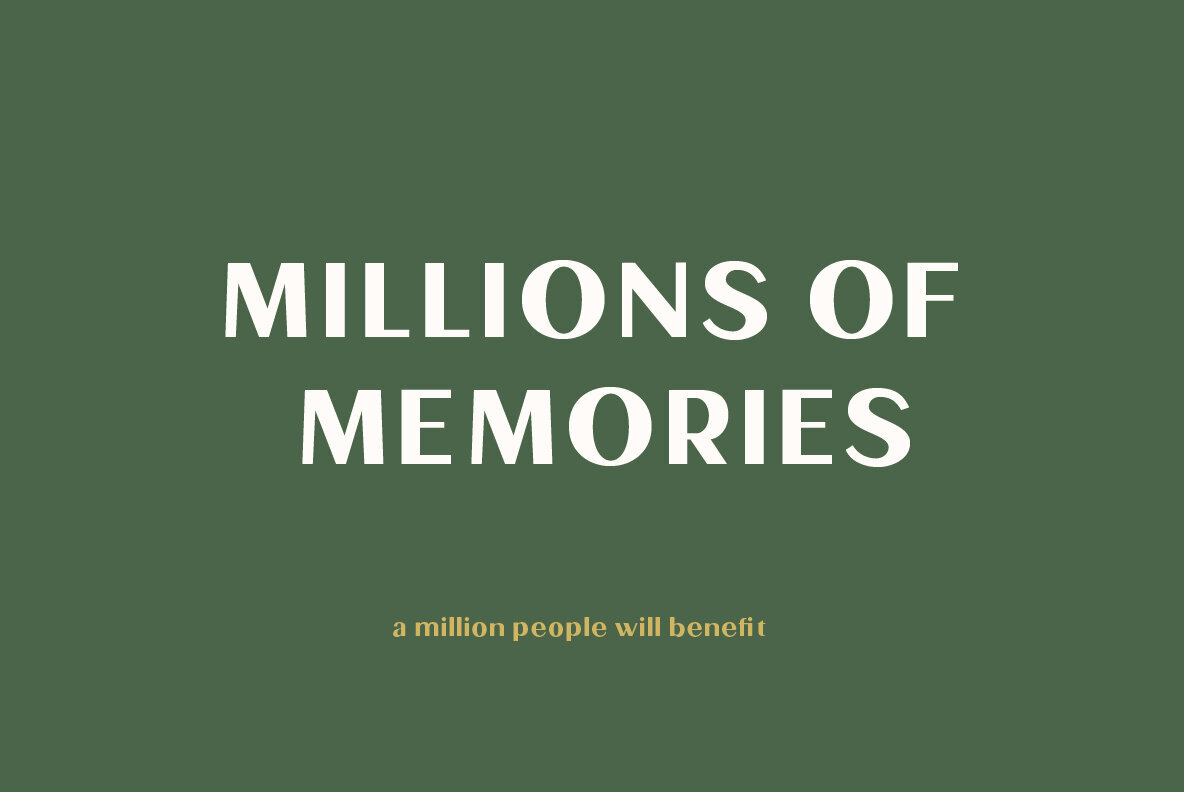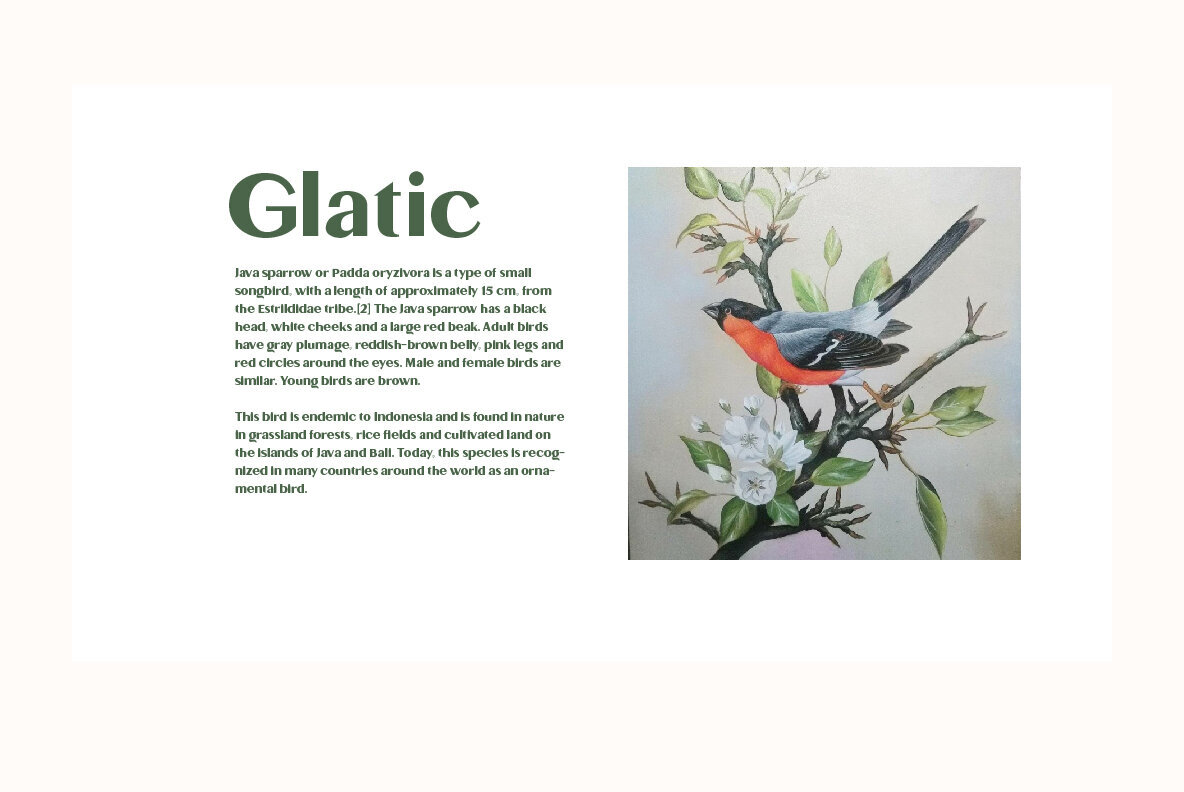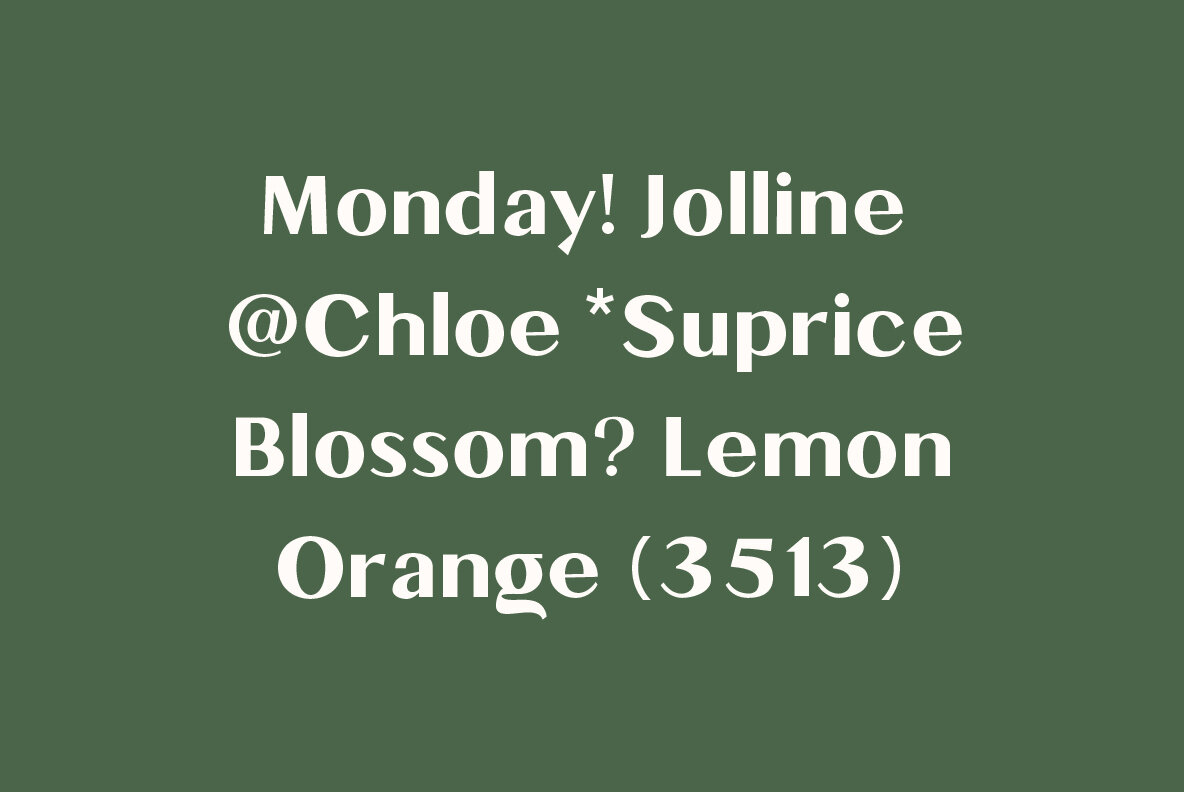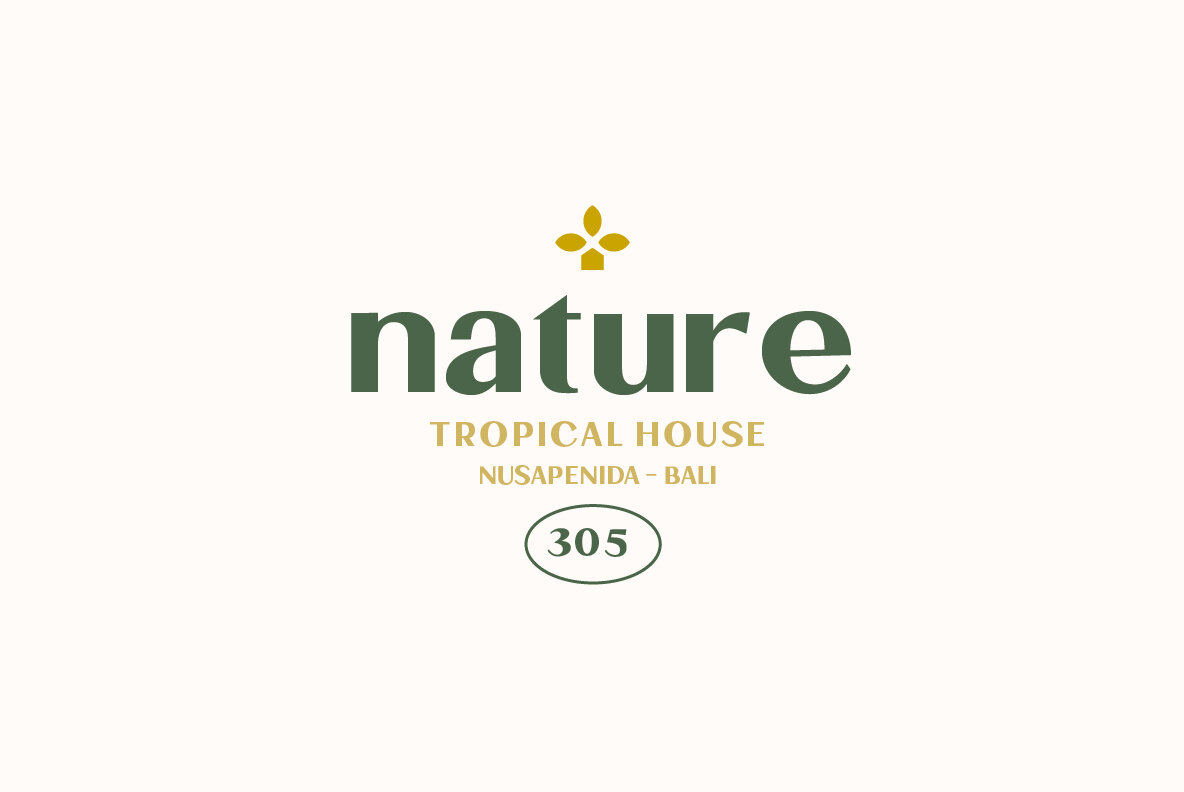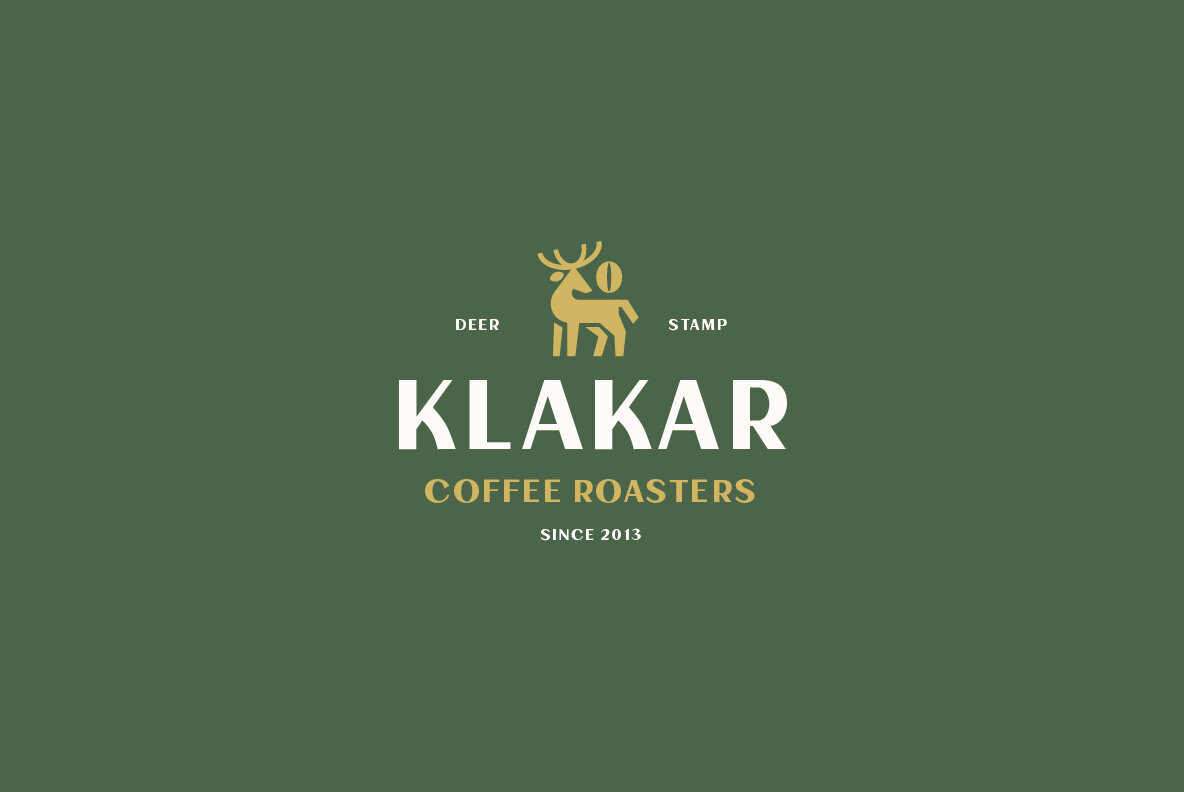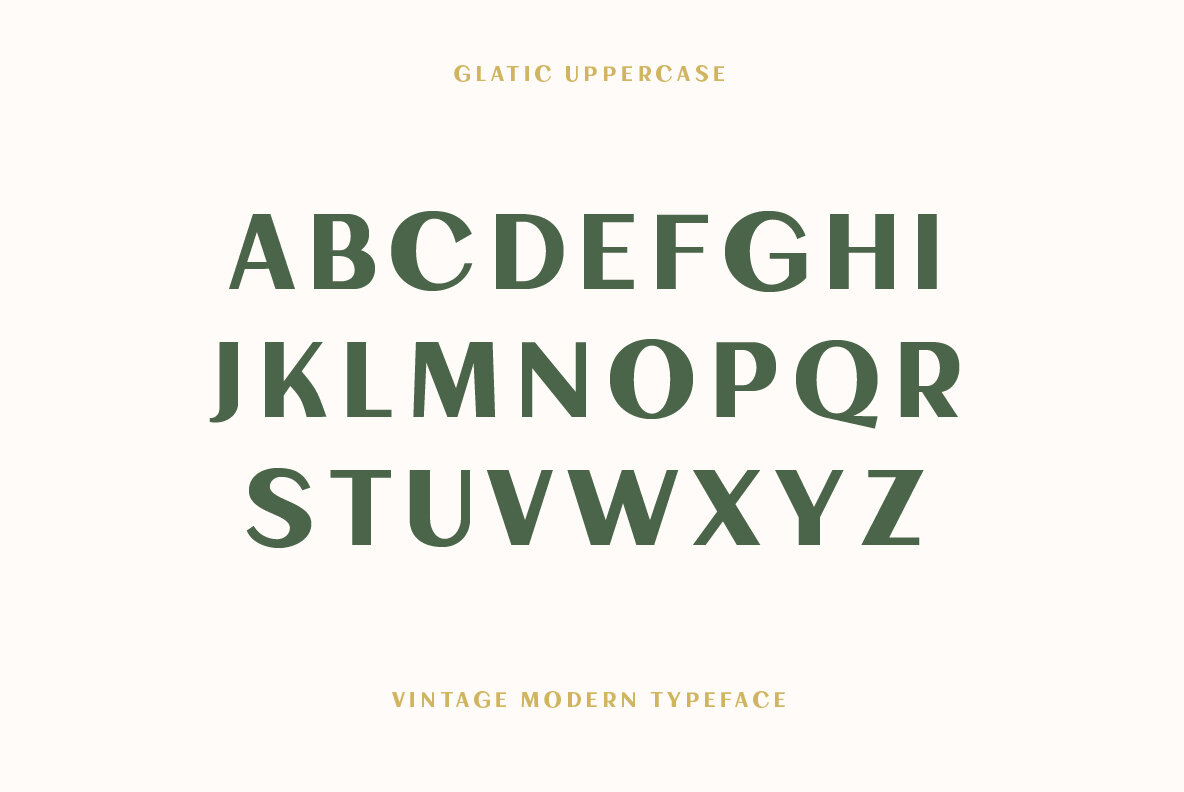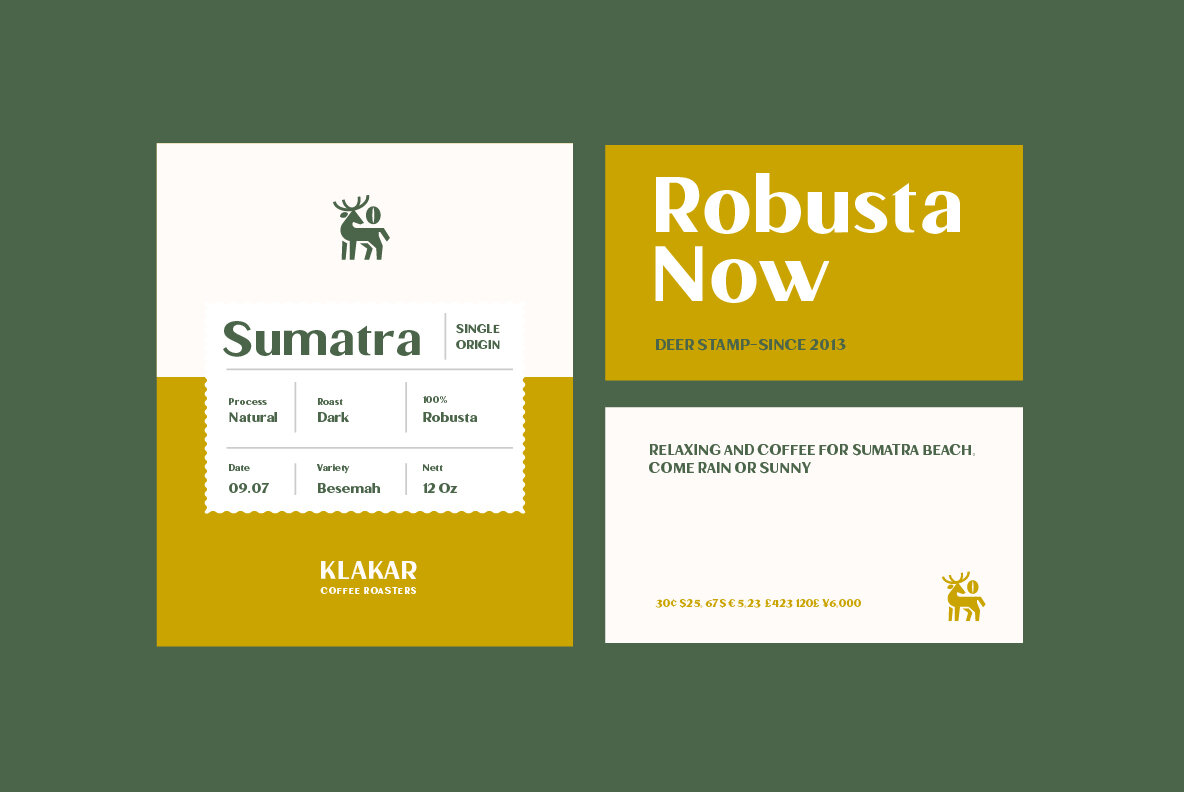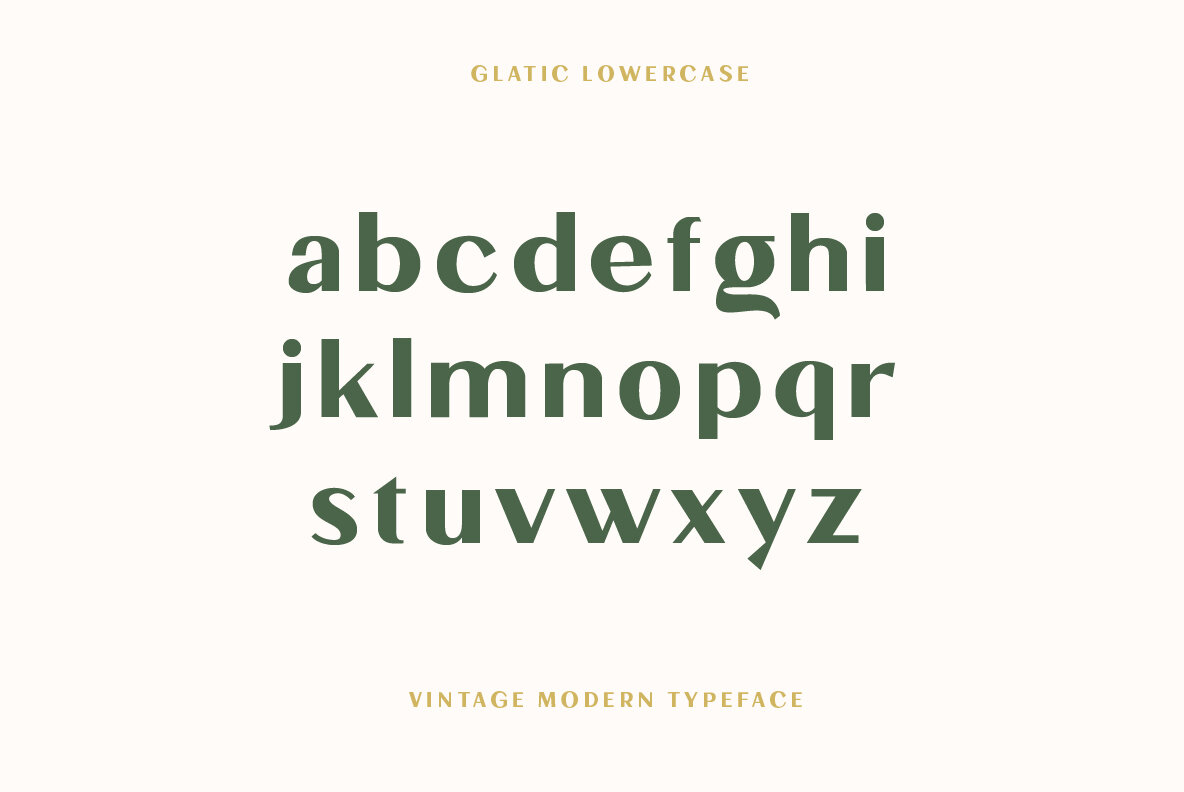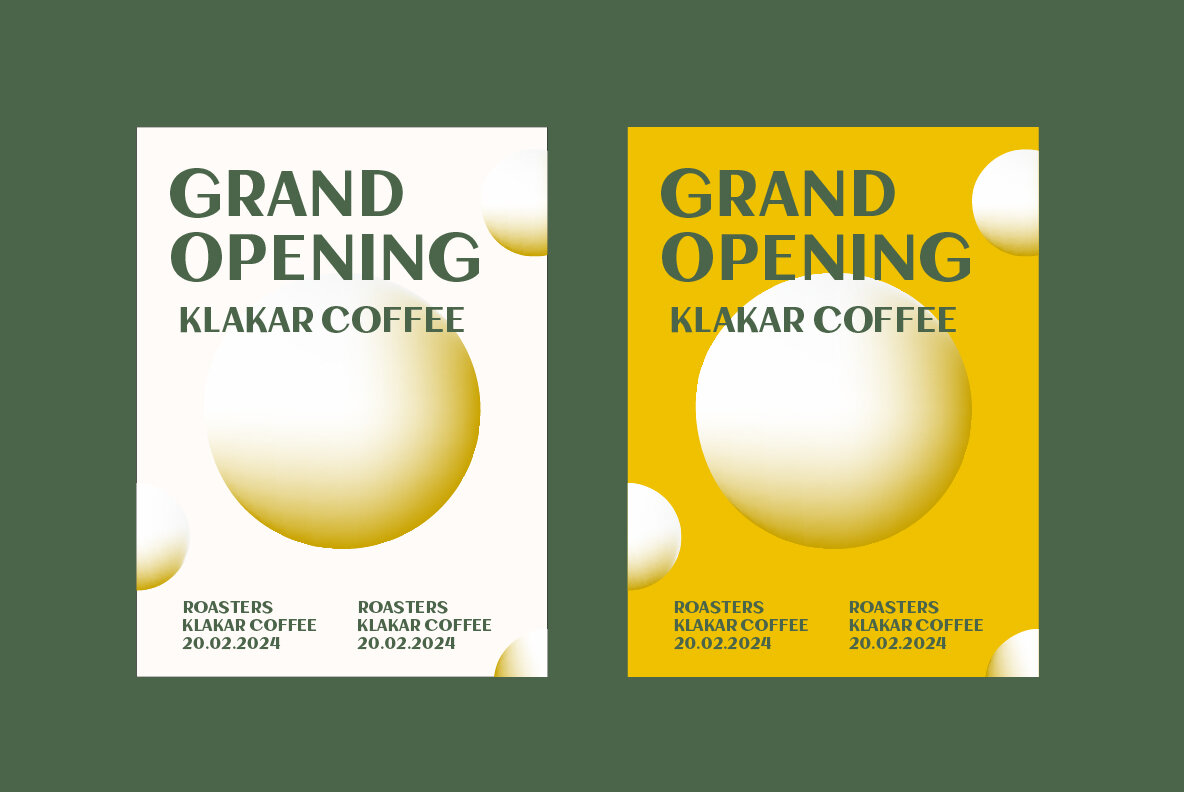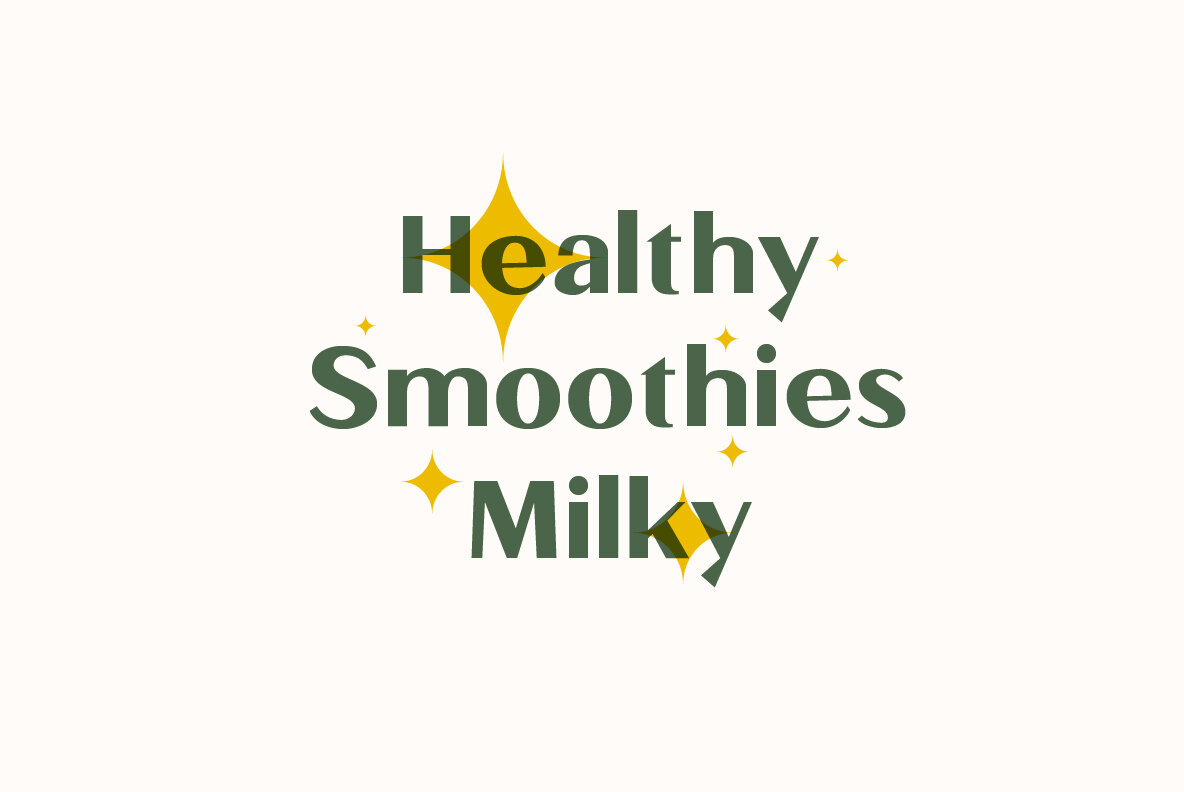
Glatic Font
Glatic Bold
Introducing Glatic, a bold typeface that captures the essence of elegance with its unique construction. Inspired by the beauty of nature, this font is designed for graphic designers and typography professionals who prioritize style in their projects. Glatic's striking appearance makes it ideal for various creative endeavors.Glatic: Nature-Inspired Bold Typeface
Perfect Applications
With Glatic, integrate the natural world's charm and robust design into your next project.